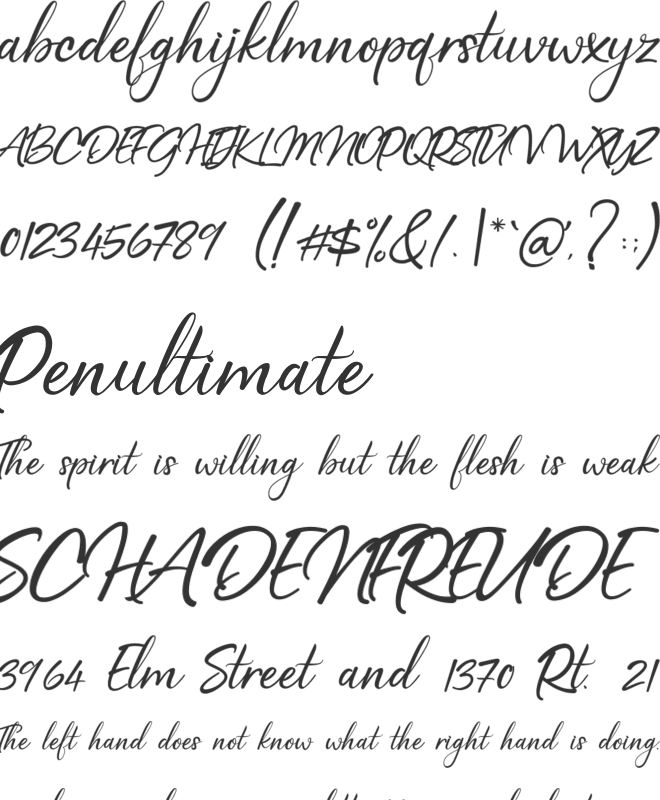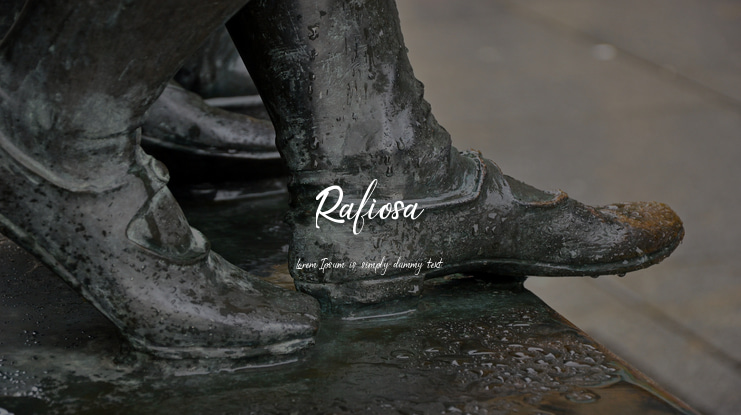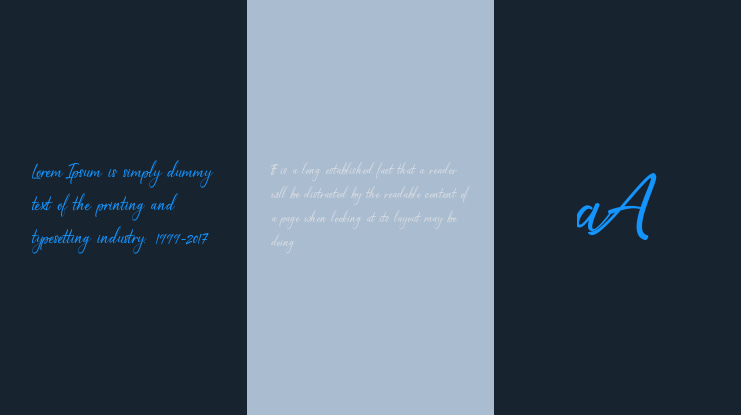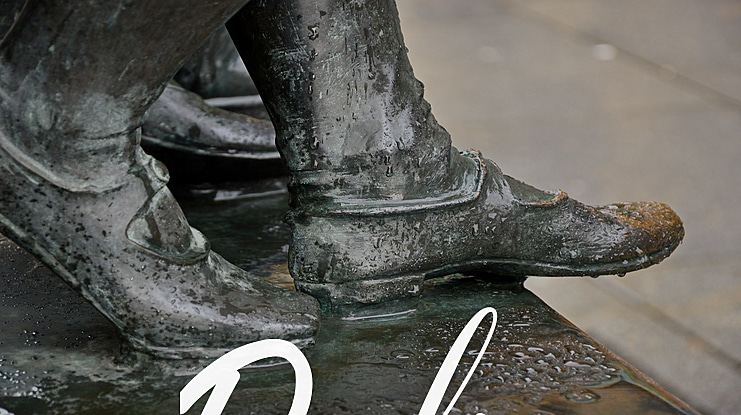
Rafiosa Font
Introducing the Modern Calligraphy Font Rafiosa .Rafiosa is a handwritten calligraphy with quick movement modern calligraphic font style. You can mix and match with Opentype feature:
and stylisticset from ss01 to ss15 gorgeous extras from a to z and beginning and ending numerals swashes.Accessing the opentype features / glyphs: This font works best in a program that supports OpenType features, such as Adobe Indesign CS, Adobe Illustrator CS, Adobe Photoshop CC or Corel Draw 2019. ITake a look at the character map to help you along the way!